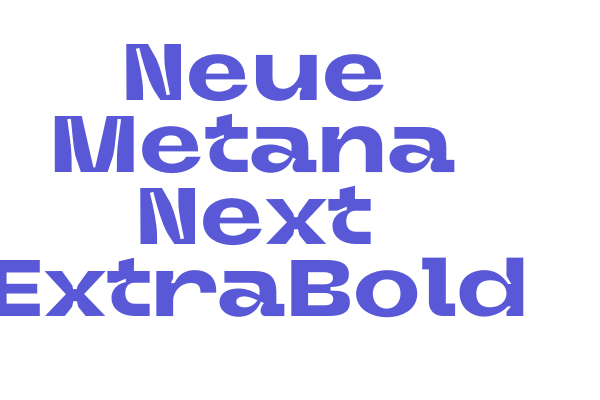
Neue Metana Next ExtraBold is a sleek and modern sans-serif font designed by Hendra Maulia & Aulia Rahman. With its bold and impactful style, this font is perfect for creating eye-catching headlines, titles, and logos. The Neue Metana Next font family offers a range of weights to suit various design needs.
Font Name: Neue Metana Next ExtraBold
Designer: Designed by Hendra Maulia & Aulia Rahman
Font Family: Neue Metana Next